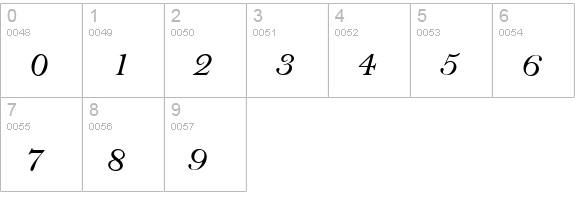
Baltimore-Italic Font Details
Baltimore-Italic is a distinctive, italic variant in the Baltimore typeface family \xE2\x80\x94 well suited to design and typography projects.